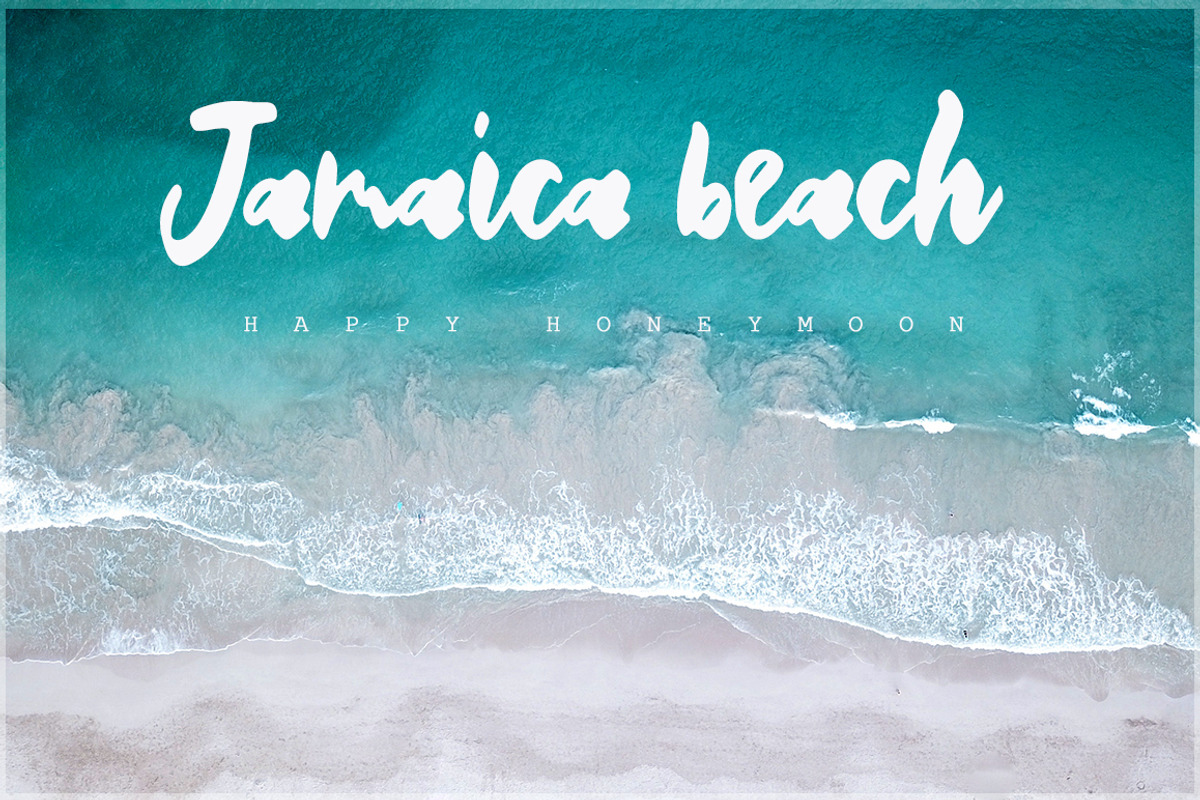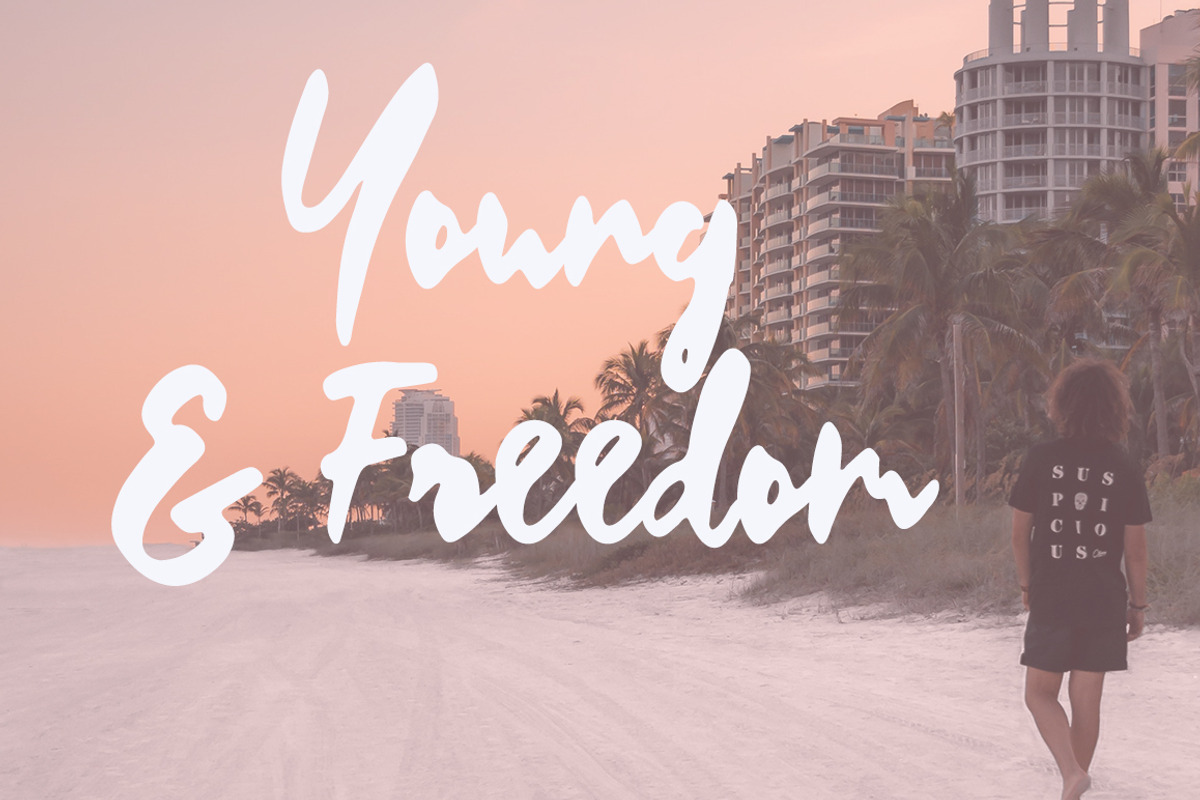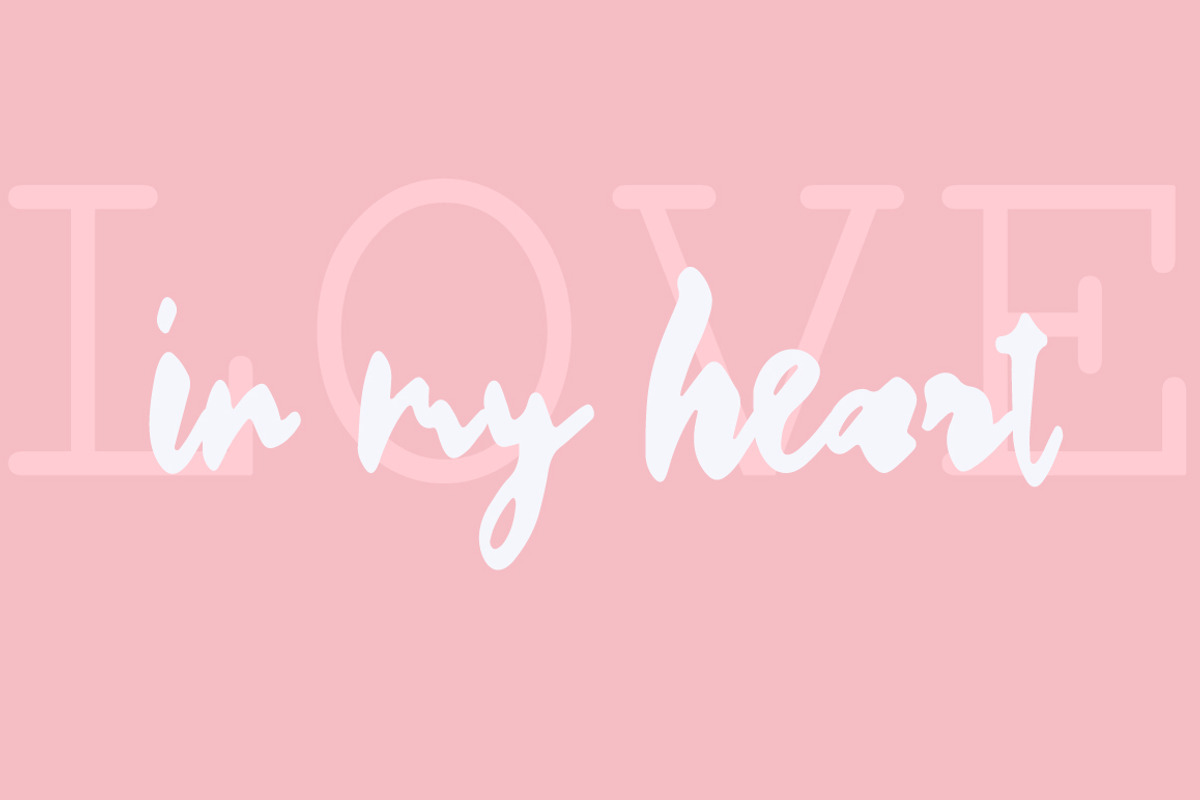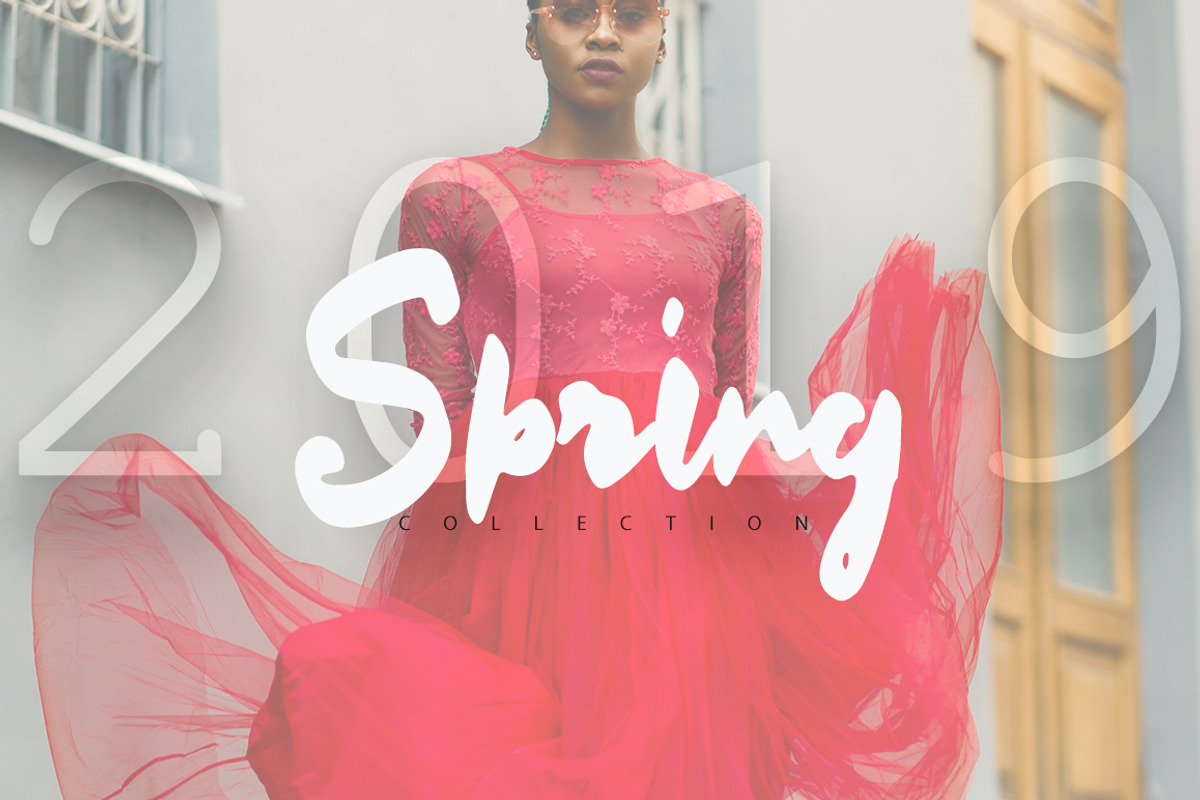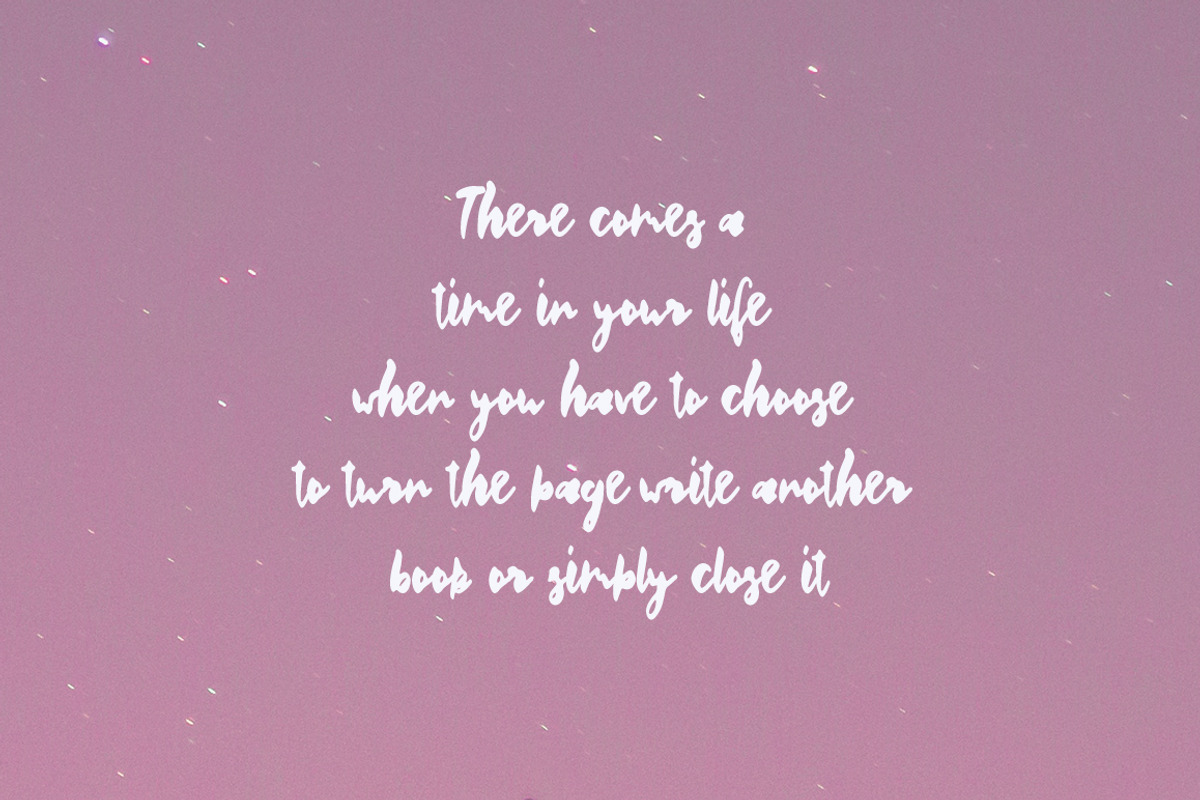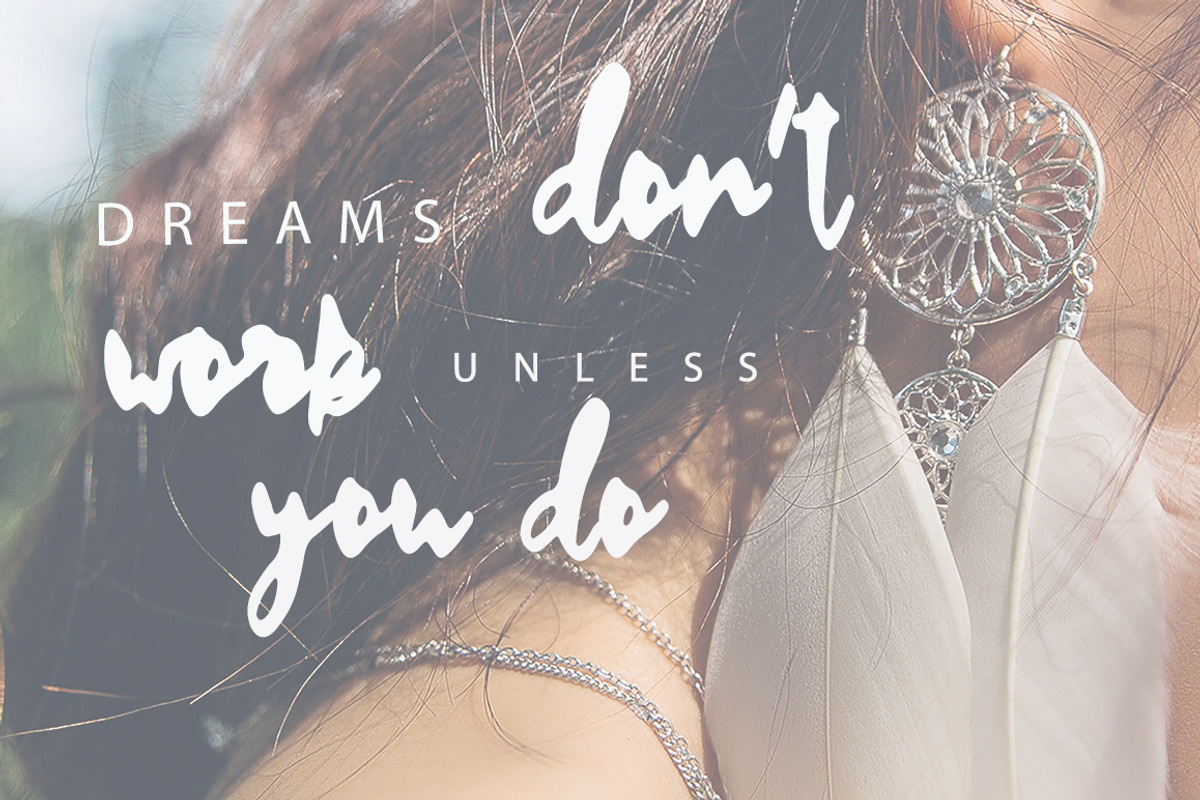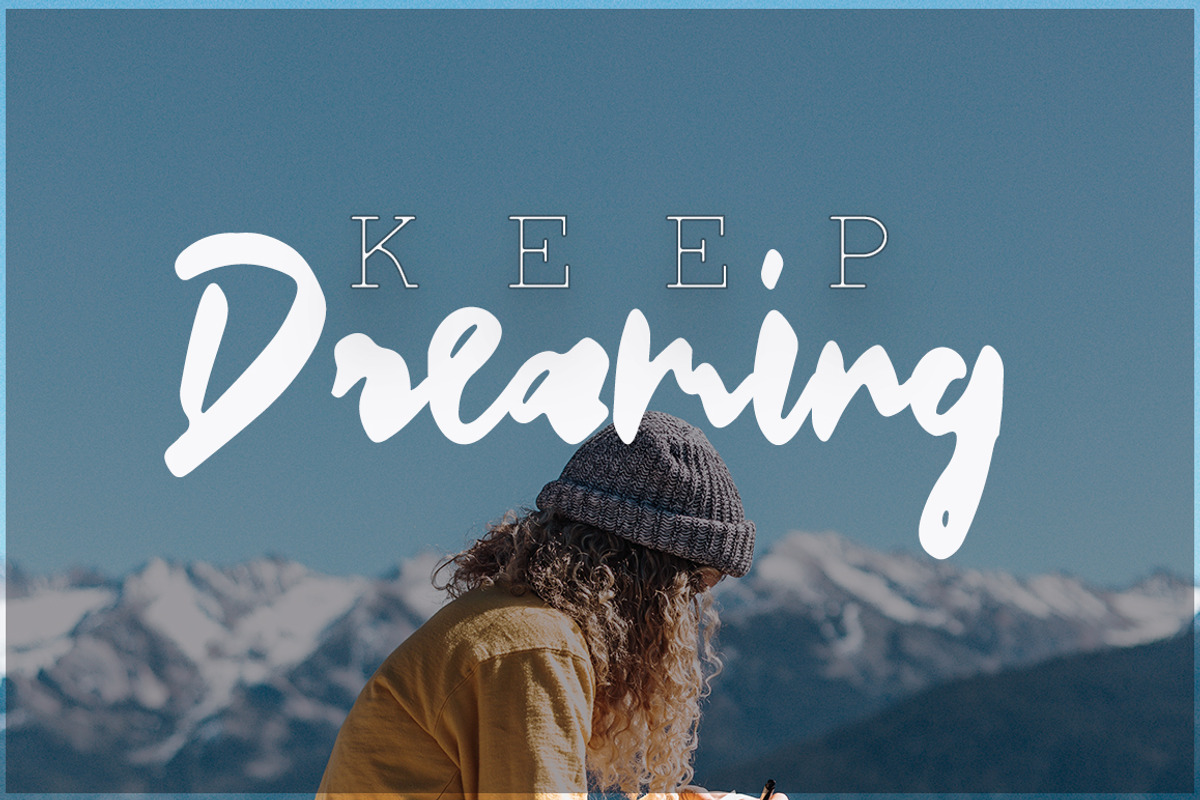
Quimbro Handwritten Brush Font
Quimbro is a handwritten brush font
Quimbro pairs beautifully with many fonts and can be used in a variety of different scenarios! Perfect for many design projects such as logo design, branding, blog graphics, stylizing quotes, wedding stationery, art prints, collateral design, packaging, social media, and so on. I’ve truly enjoyed the process of creating Quimbro and hope that it will bring some magic into your projects!
Why Quimbro Handwritten Brush Font is worth a look
Quimbro Handwritten Brush Font by Katie Holland fits naturally into Branding, posters, packaging, typography.